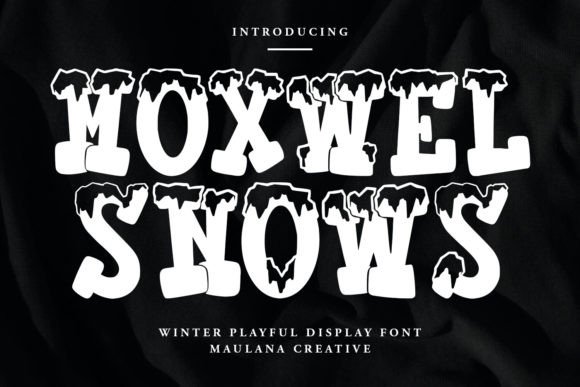
Introducing Moxwel Snows, the winter wonderland of fonts, a captivating display font that will transform your designs into enchanting landscapes. Picture crisp, snow-laden mornings with bold strokes and playful characters, dancing across your screens, leaving a trail of creative magic.
With Moxwel Snows, you'll embark on a typographic journey like no other. Its whimsical ligatures and alternates are like snowflakes, each one unique and captivating, adding a touch of delightful surprise to your designs. Unleash your creativity and let your imagination soar as you craft logos that shimmer like frozen crystals, social media posts that dance with wintery charm, and book and movie titles that evoke a sense of wonder and enchantment.
Moxwel Snows is a multilingual marvel, supporting over 100 languages, making it the perfect companion for your global adventures. Whether you're designing for a local audience or reaching out to a worldwide community, Moxwel Snows will effortlessly bridge linguistic barriers, spreading your message with grace and elegance.
Imagine your designs adorned with Moxwel Snows, a font that effortlessly blends sophistication and playfulness. Its bold strokes command attention, while its fun characters infuse your creations with a sense of joy and wonder. Use it as a primary font to make a statement or pair it with a script or serif font for a touch of timeless charm. The possibilities are endless, just like the snowflakes that inspire it.
With Moxwel Snows, you'll create stunning works of art that will captivate your audience and leave a lasting impression. Whether you're a seasoned designer or just starting, this font will ignite your creativity and elevate your designs to new heights. Embrace the magic of Moxwel Snows and let your imagination take flight!